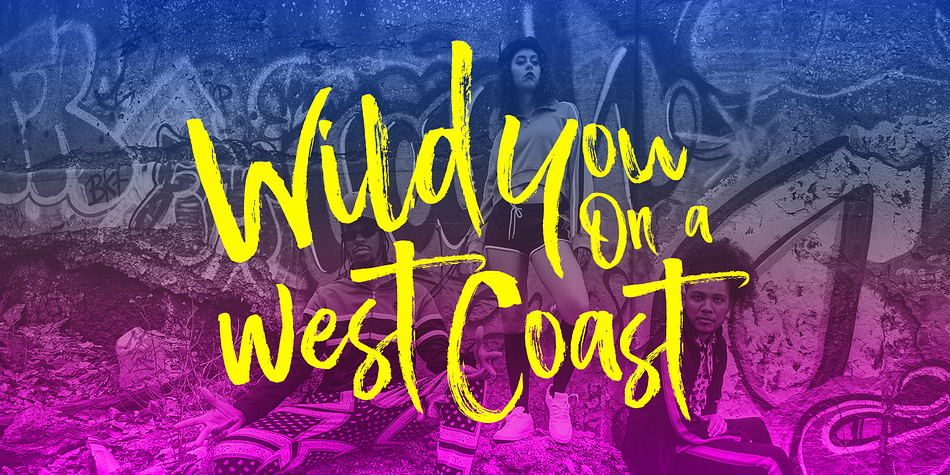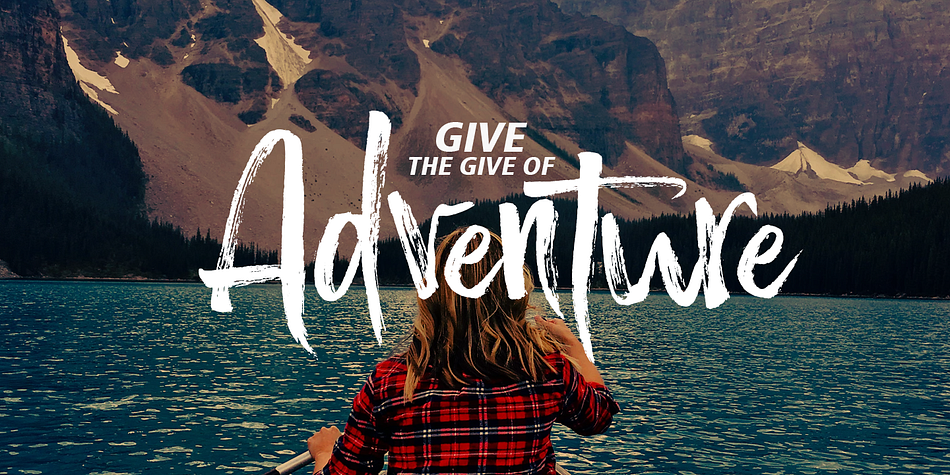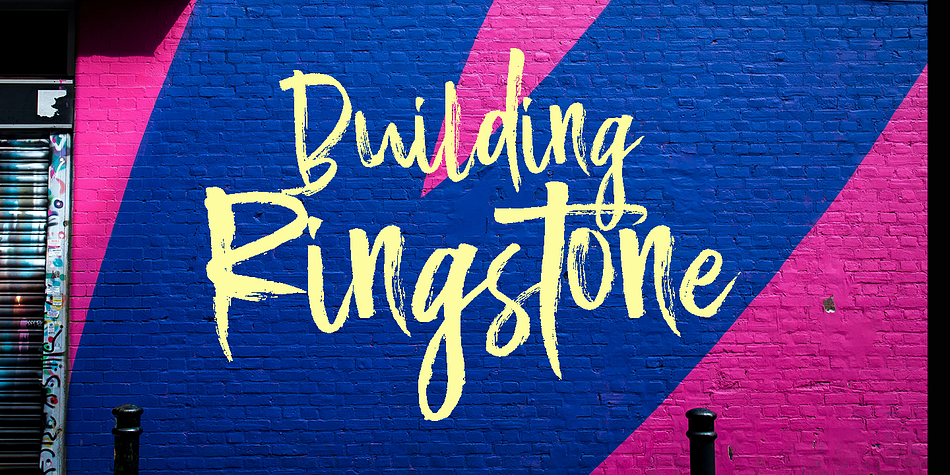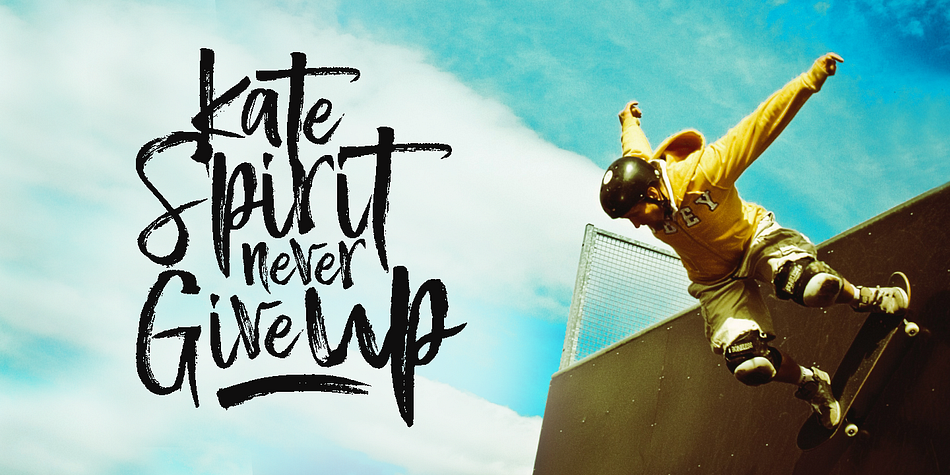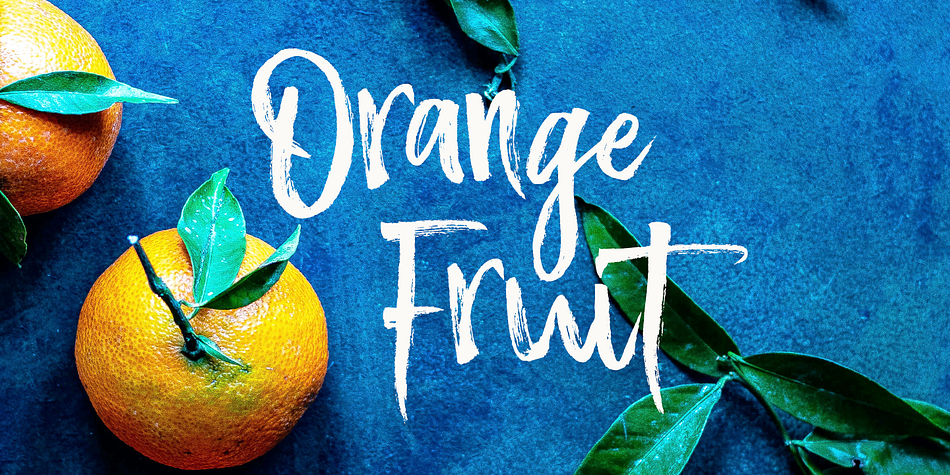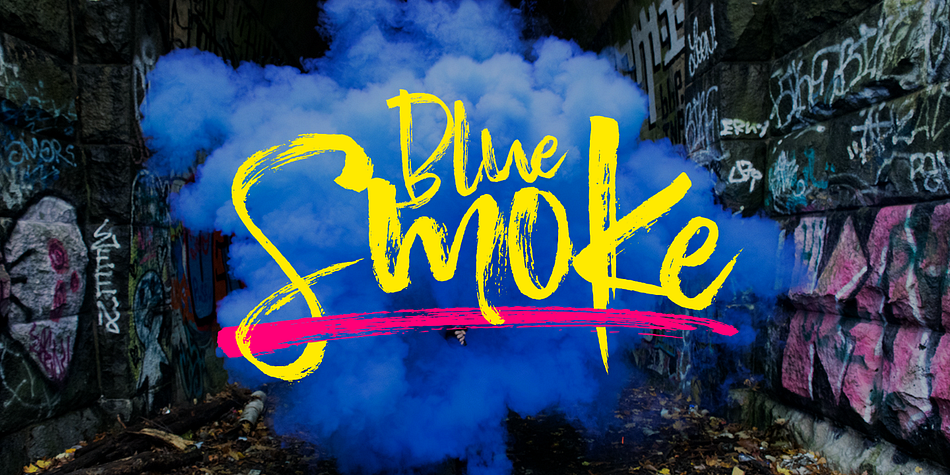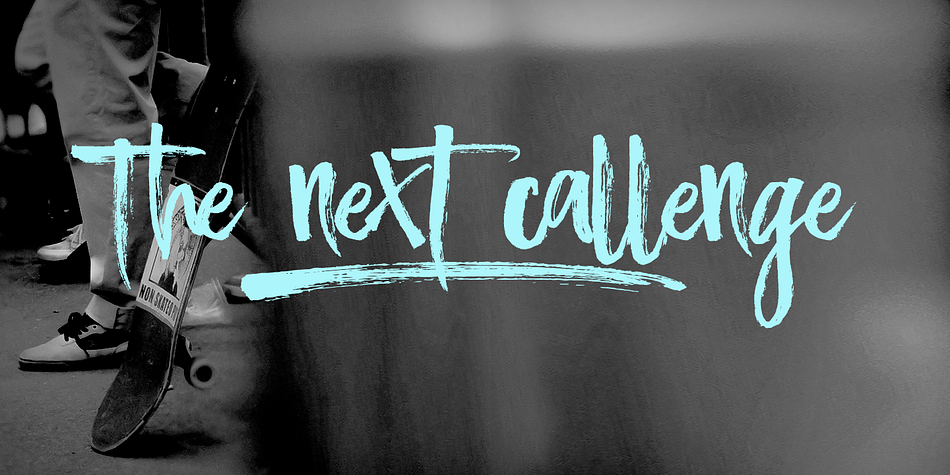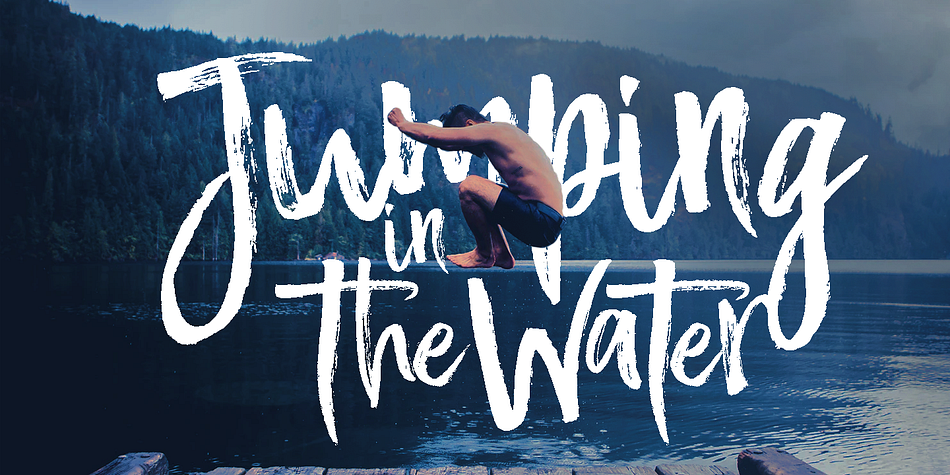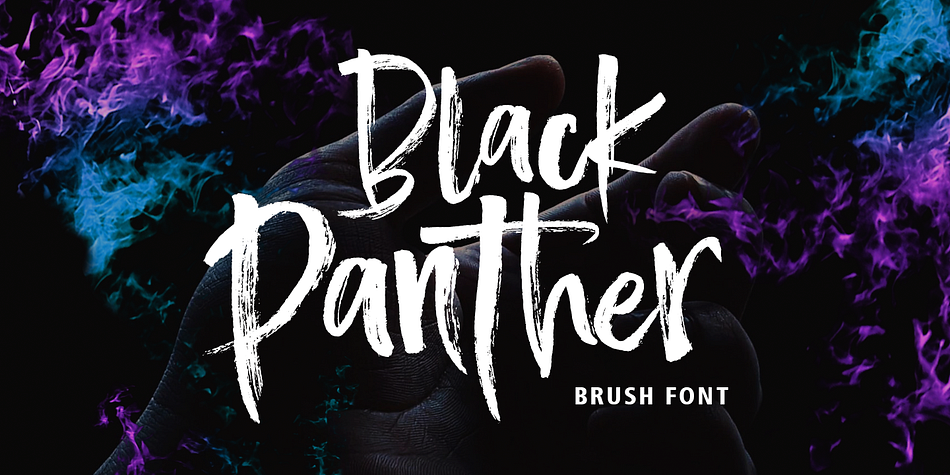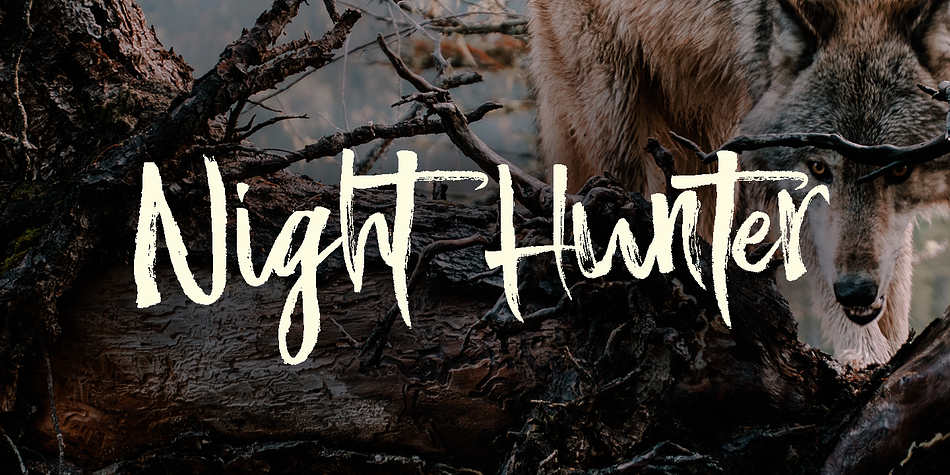
Black Panther
Black Panther is a brush script and grunge font family. This typeface has three styles and was published by Gatype.
Black Panther is textured brush font, a contemporary approach to design, with a handmade natural and irregular baseline. Suitable for use in title design. Such as apparel, invitations, book tittles, stationery design, quotes, branding, logos, greeting cards, t-shirts, packaging design, posters and more.
Designers: khaidir